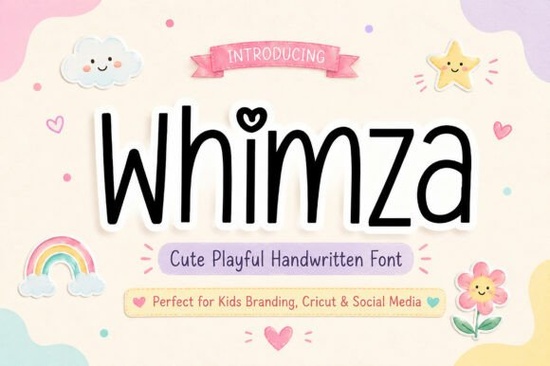
If you’re looking for a font that feels like a warm hug in type form, Whimza Font might be exactly what your next project needs. It’s handwritten with soft, tall strokes and includes a subtle heart detail that gives it personality without being overwhelming. Whether you’re designing kids’ birthday invitations, baby shower stickers, or print-on-demand tote bags, this font adds charm without sacrificing readability.
What makes Whimza especially useful is how naturally it fits into both digital and physical spaces. You can use it confidently on social media graphics, Cricut cut files, or even nursery wall art. The handmade texture keeps things feeling personal, while the clean letterforms ensure your message still comes through clearly no squinting required.
Who should really consider using Whimza?
This isn’t just another cute font. It’s built for creators who need something playful but practical. Think:
- Small business owners selling baby clothes, toys, or candy the kind of products that benefit from a friendly, approachable look.
- Crafters and DIYers working with vinyl, sublimation, or embroidery machines. The stroke weight holds up well when scaled or printed.
- Teachers and parents making classroom posters, chore charts, or party decor. It’s legible enough for kids to read, but whimsical enough to feel special.
- Print-on-demand sellers designing mugs, shirts, or tote bags with lighthearted quotes or slogans. Whimza pairs beautifully with simple illustrations or solid color backgrounds.
If you’ve used fonts like Highland Grove or Farmhouse before and liked their casual vibe, Whimza will feel familiar but with more bounce and sweetness. It’s not trying to be elegant or vintage; it’s here to be cheerful and inviting.
What kinds of projects does it work best for?
Because of its tall x-height and open spacing, Whimza performs well even at smaller sizes. That makes it surprisingly versatile. Here are some real-world uses where it shines:
- Kids’ product packaging think snack boxes, toy labels, or bath bomb wrappers.
- Social media quote cards especially for parenting accounts, teachers, or small shops targeting moms.
- Party invites and thank-you notes the heart detail adds a little “aww” factor without needing extra graphics.
- T-shirt and mug designs short phrases like “Sweet as Candy” or “Little Explorer” feel right at home.
- Scrapbooking and journaling if you’re adding handwritten-style captions to photos, this font blends in naturally.
You’ll also find it works well alongside bolder display fonts or minimalist sans-serifs. Try pairing it with something like Genty for contrast one for headlines, the other for body text or accents.
Does it include everything I need?
Yes. Whimza comes with full uppercase and lowercase letters, numbers, punctuation, and basic symbols. No missing characters or frustrating gaps when you’re mid-project. If you’re used to fonts that leave out common punctuation or alternate glyphs, this one won’t let you down.
And if you’re a student or teacher creating classroom materials, you’ll appreciate how readable it is unlike some script fonts that turn into scribbles at small sizes. Pair it with something clean like Studying for worksheets or info-heavy handouts.
Want to see how others are using it? Check out examples and user projects for Whimza Font directly on Creative Fabrica.
Quick tips before you start designing
- Don’t overdo it. One or two words in Whimza pop nicely. Long paragraphs? Not so much. Use it for titles, labels, or short phrases.
- Pair with simple backgrounds. Busy patterns can compete with its handmade texture. Solid colors or soft gradients let it shine.
- Adjust tracking slightly if needed. Some letters (like “r” and “n”) sit close together by default nudging the spacing up by 10–20 points can help in tight layouts.
- Test print before cutting. Especially for vinyl or sublimation make sure the fine details (like the heart) show up clearly at your intended size.
Whimza isn’t trying to be the fanciest or most complex font out there. It’s meant to feel like something you’d write yourself if you had perfect penmanship and a steady hand. That’s why it works so well for personal, heartfelt, or kid-focused projects. It doesn’t shout. It smiles.